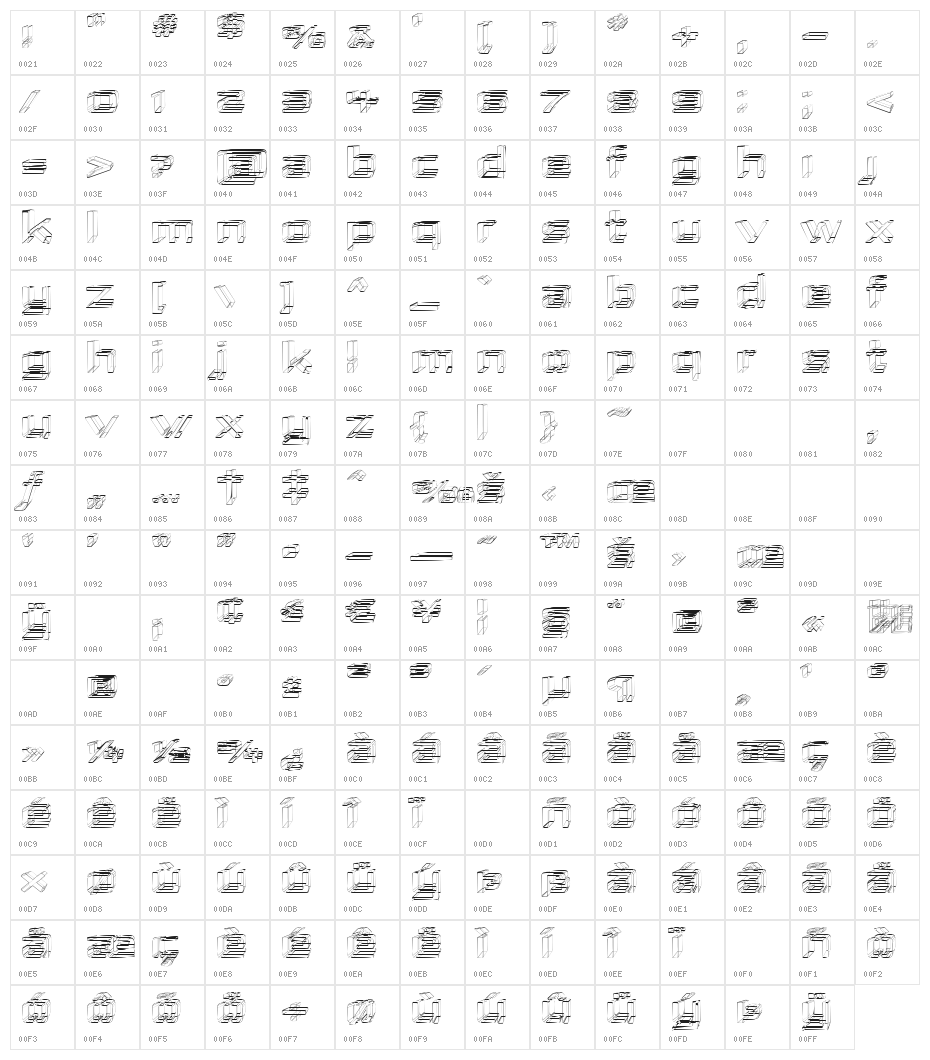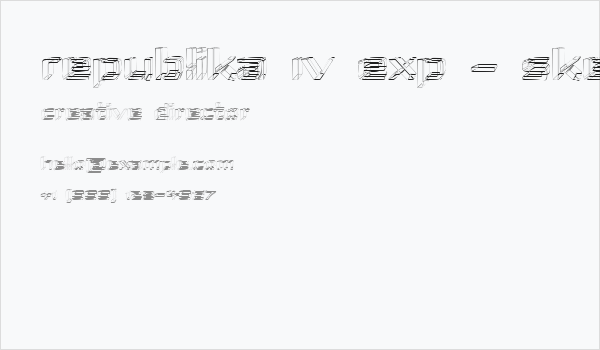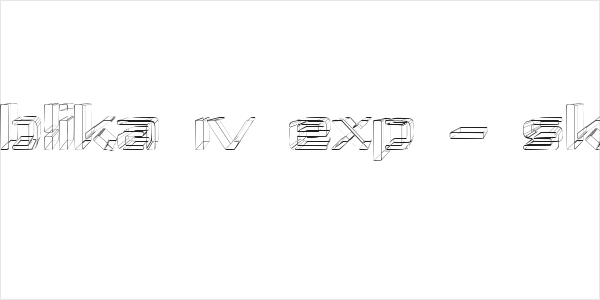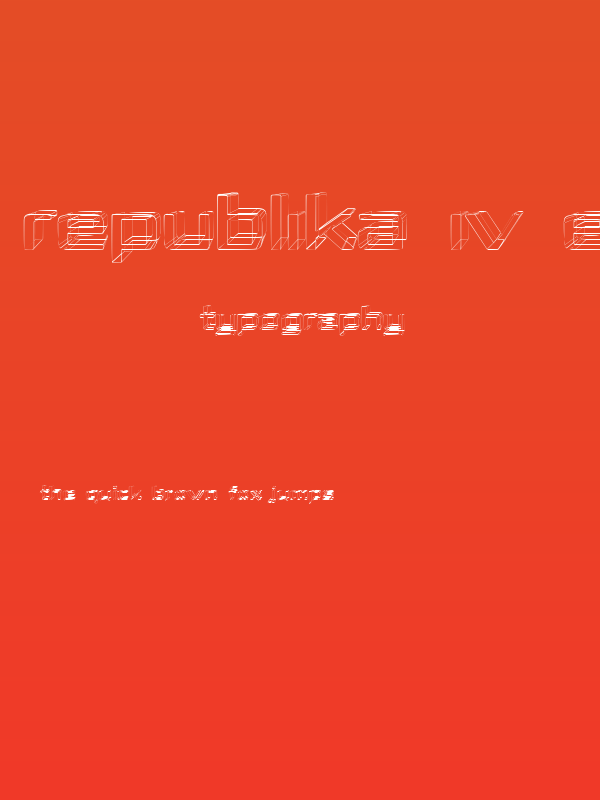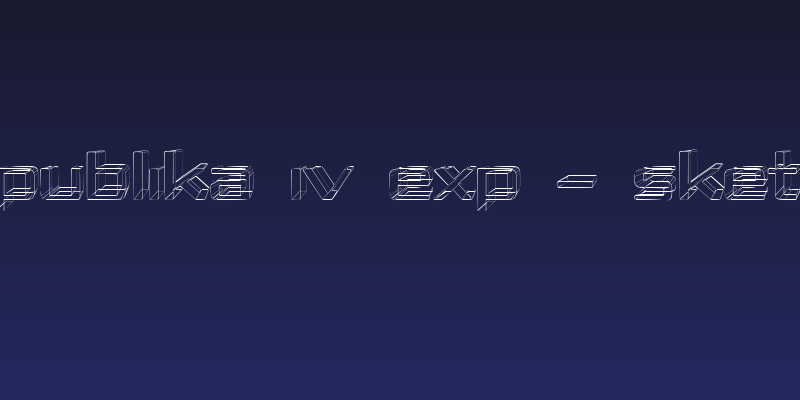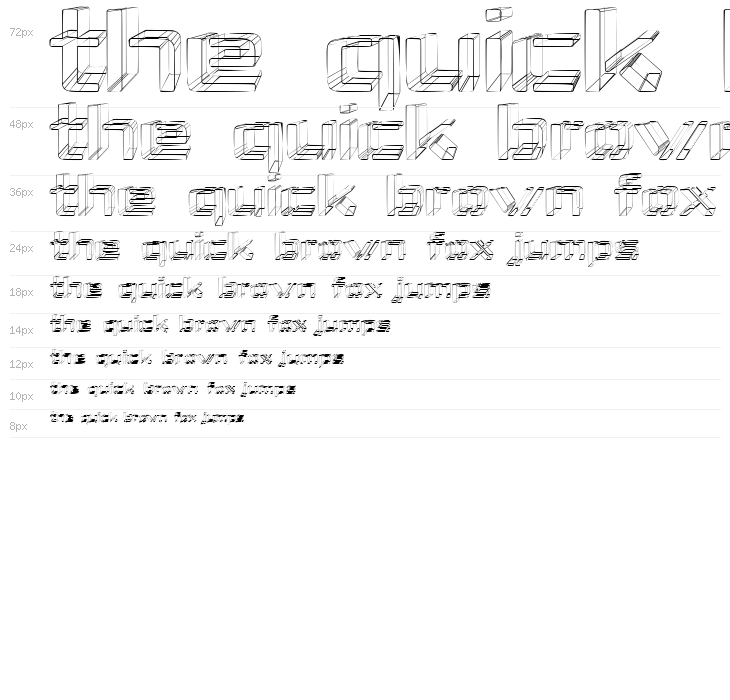
Republika IV Exp - Sketch Font
Republika IV Exp - Sketch Description
This font features a unique, three-dimensional sketch style that combines geometric precision with a hand-drawn aesthetic. The characters are constructed with overlapping lines that create a sense of depth and movement, making each letter appear as if it is emerging from the page. The uppercase and lowercase letters maintain a consistent structure, while the numerals and special characters follow the same design principles, ensuring a cohesive look. The font's playful yet structured appearance makes it ideal for creative projects that require a distinctive and modern touch.
| Proposed Projects | Ideal for posters, branding, album covers, and any project needing a modern, artistic flair. |